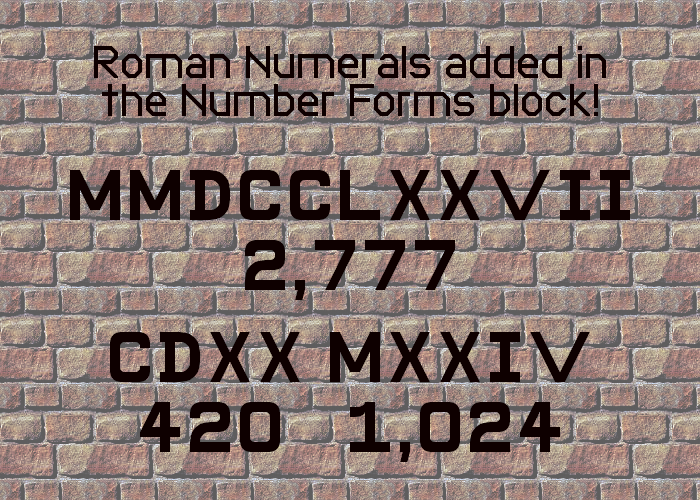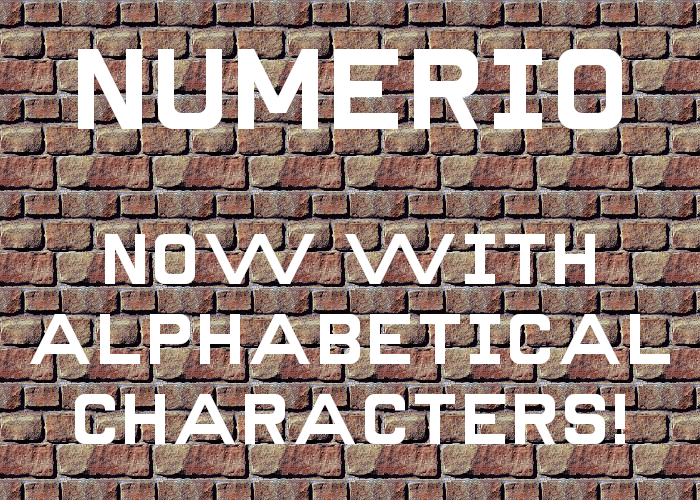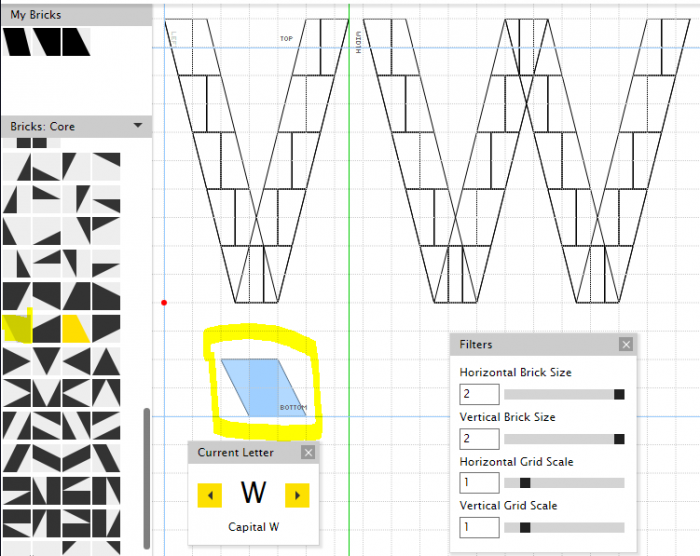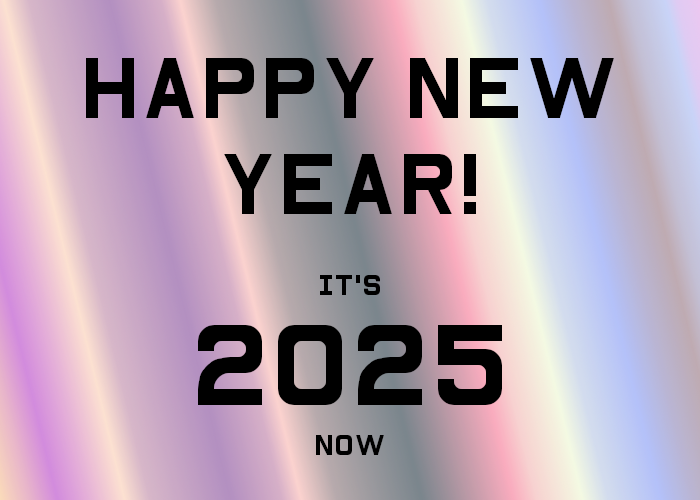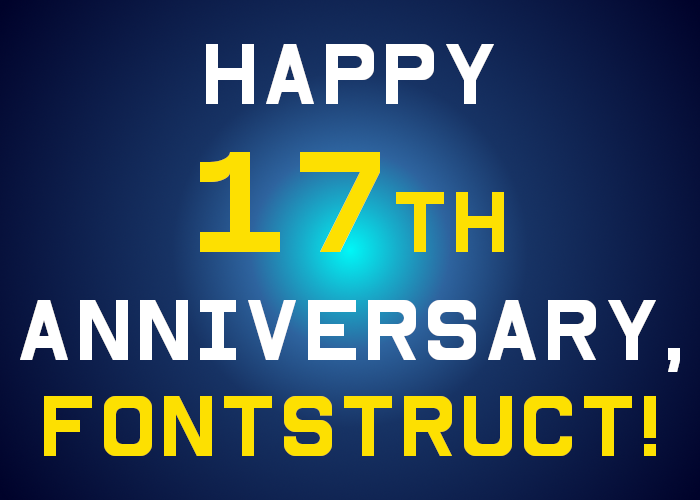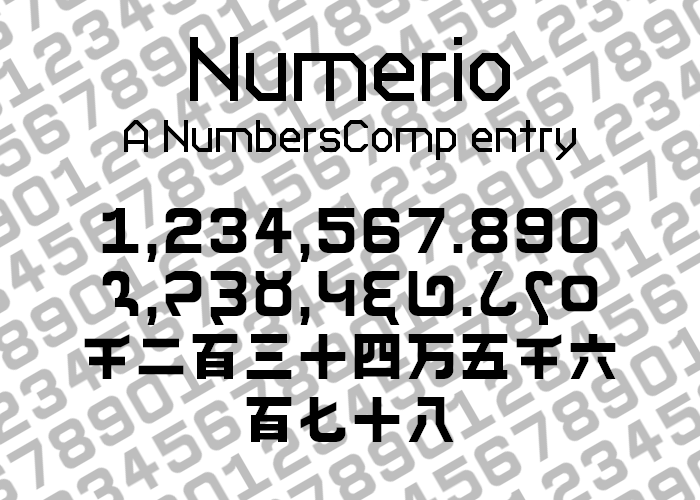
This is a WIP for now. Currently contains Latin, Devanagari, and Chinese* numerals.
This font also contains the letter E for numbers like 1.2345678E+9.
Lentariso was used for text, while this font was used for the numbers in this sample.
*Only up to 10,000 at the moment.
Wondering what other numeral systems are easy to build and not super detailed…
roman numerals
But only the basic ones. The advanced numerals to be added soon.
This font has been expanded to support alphabetical characters.
Yes, I know the W doesn't work very well, so if you have any ideas on how to improve it, feel free to drop them in the comments.
use 4/1 slopes?
I am not sure why you are not satisfied with the W, to me it seems little too wide and thin (by the way A, and V do too). I would suggest try to make more steep slanted composite bricks, but who am I to give advices here, you seem to well experienced one.
I used 10:3 slope composites to make not only the W narrower, but also the A and V. They look better to me now.
They look much better now. 10/3 is rather unxpected though. Very close angles could be made with 1/3 (little wider) or 1/4 (little narrower), which are somewhat easier to place together. Hats off to you for not making compromise.
In case anyone is still wondering: Yes, I still have the font that holds the future glyphs in a seperate font (Sunuwar and Gurung Khema). They will be moved into this font once Meek adds support for Unicode 16 (including CJK Ext-I, the one block added in Unicode 15.1)
(I'll add the Sunuwar and Gurung Khema numerals as soon as possible)
Sunuwar and Gurung Khema numberals added!